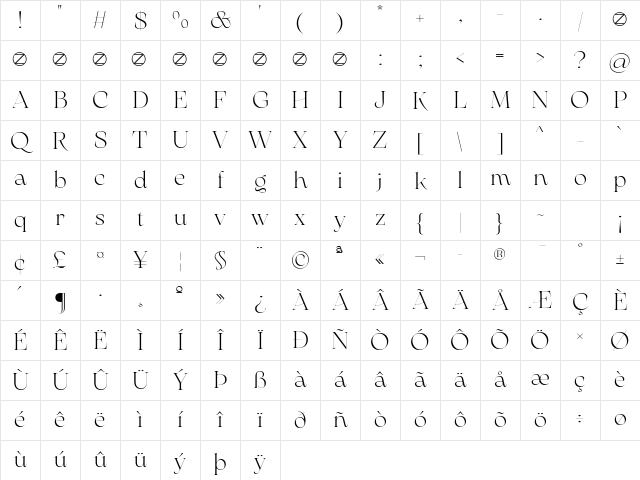
Arsenica Trial Light Free Font
Arsenica Trial Light
Designer: Francesco Canovaro
Design Context for Arsenica Trial
Arsenica Trial is a composed and adaptable typeface that performs quietly and consistently across a wide range of design contexts. Its slender proportions lend an understated elegance to any composition.